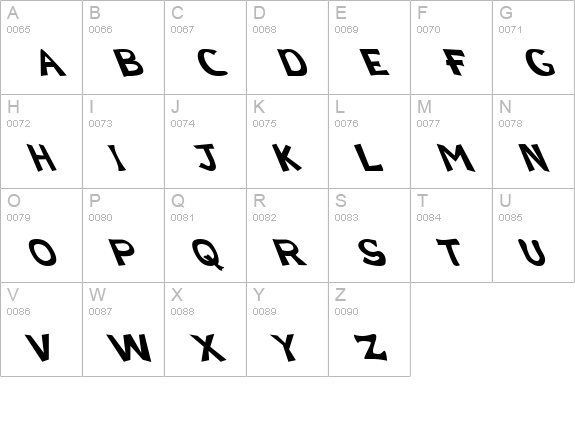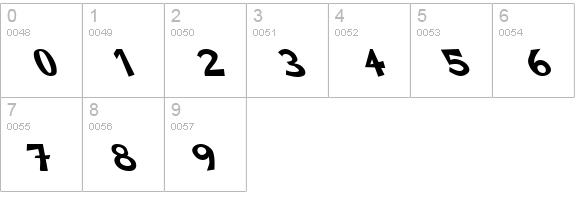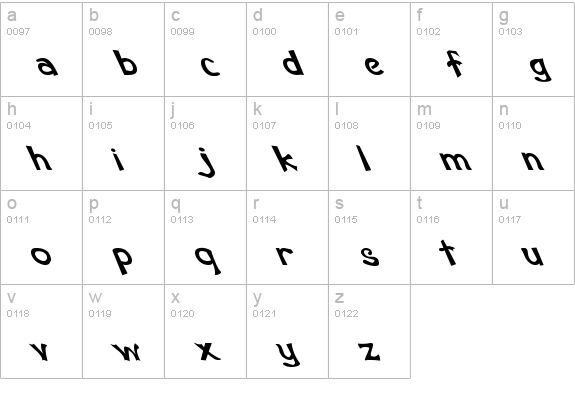
FZ BASIC 12 LEFTY Font Details
FZ BASIC 12 LEFTY font is a modern and stylish typeface designed for those looking to add a playful touch to their projects. With its unique design featuring quirky angles and smooth curves, this font is perfect for creating eye-catching headlines, posters, and branding materials. The FZ BASIC 12 LEFTY font is versatile and can be used in a variety of design projects, making it a valuable addition to any designer's toolkit. Best of all, this font is available for free download at FontsMarket.com. Whether you're a seasoned designer looking to try something new or a beginner wanting to experiment with different styles, the FZ BASIC 12 LEFTY font is a great choice. Download it today and unleash your creativity with this fun and dynamic typeface!